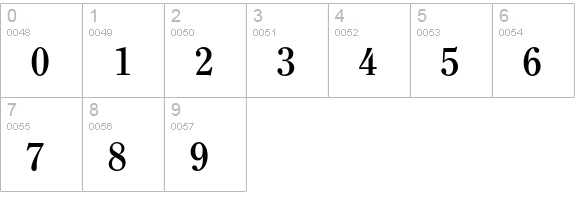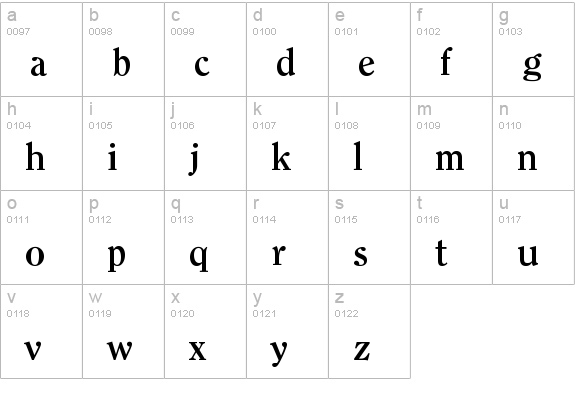
ClearfaceEF-Bold Font Details
ClearfaceEF-Bold is a strong, high-contrast variant in the ClearfaceEF typeface family \xE2\x80\x94 well suited to headlines, attention-grabbing titles, and strong calls-to-action.
ClearfaceEF-Bold is a versatile and modern font that exudes confidence and sophistication. Its bold and clean lines make it perfect for headlines, titles, and branding materials. The strong and legible characters ensure that your message will be conveyed effectively and memorably. What sets ClearfaceEF-Bold apart is that it is not only a high-quality font but also completely free to download. You can easily access this stylish typeface at FontsMarket.com, where you can enhance your design projects without any cost. Don't miss out on the opportunity to elevate your designs with ClearfaceEF-Bold and make a lasting impression with its striking aesthetic.